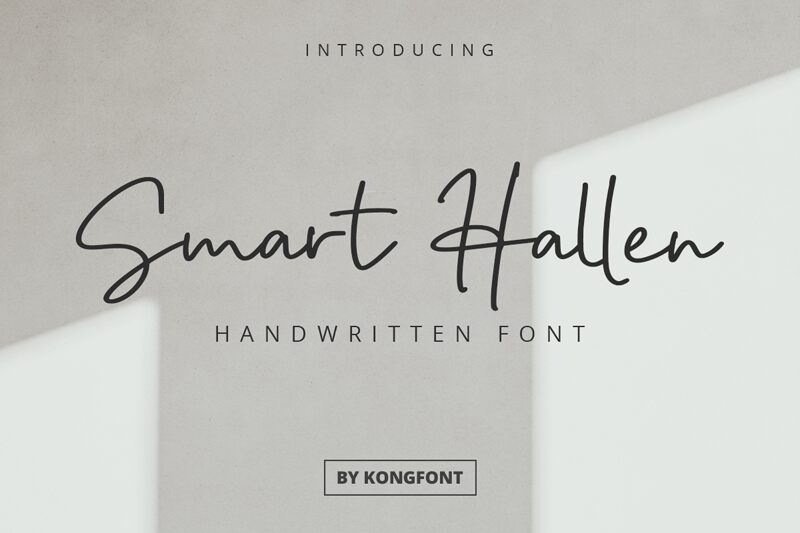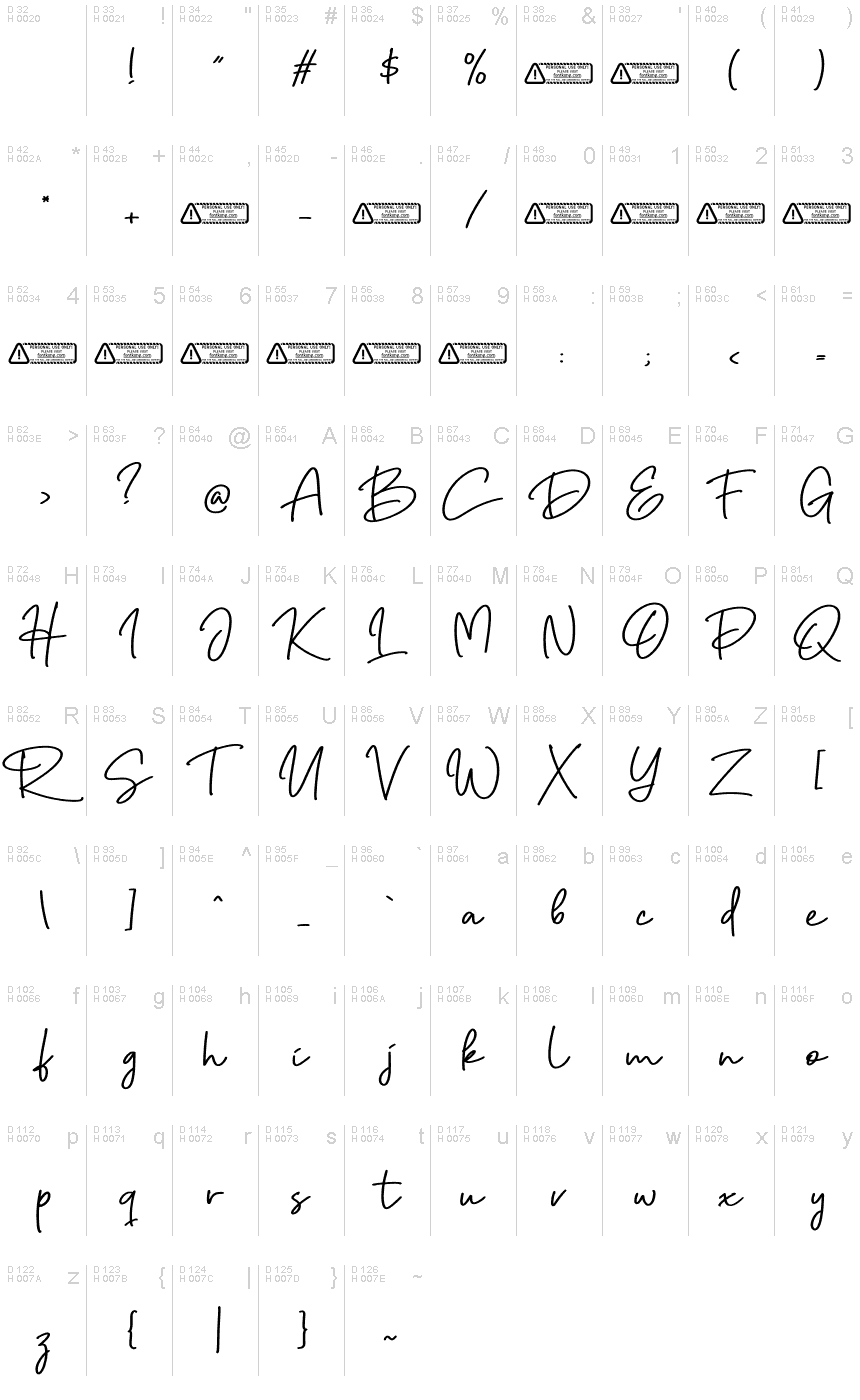
Smart Hallen
Smart Hallen, a delightful creation by Kong Font, is an exquisite handwritten font that exudes elegance and charm. With its extra-light weight, this font brings a touch of sophistication to any project.
Its graceful strokes and flowing lines make it perfect for wedding invitations, elegant branding materials, and high-end fashion editorials.
Let Smart Hallen elevate your designs with its unique handcrafted feel and add a touch of refinement to your next creative venture.